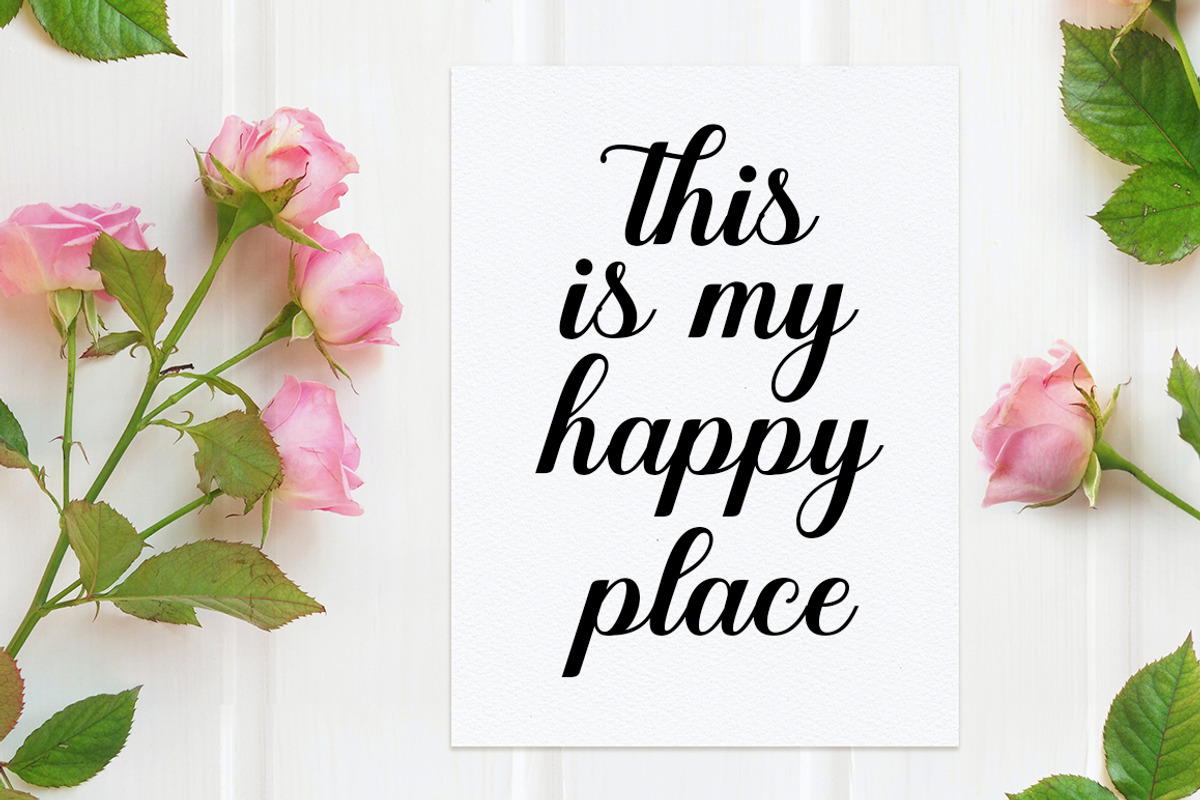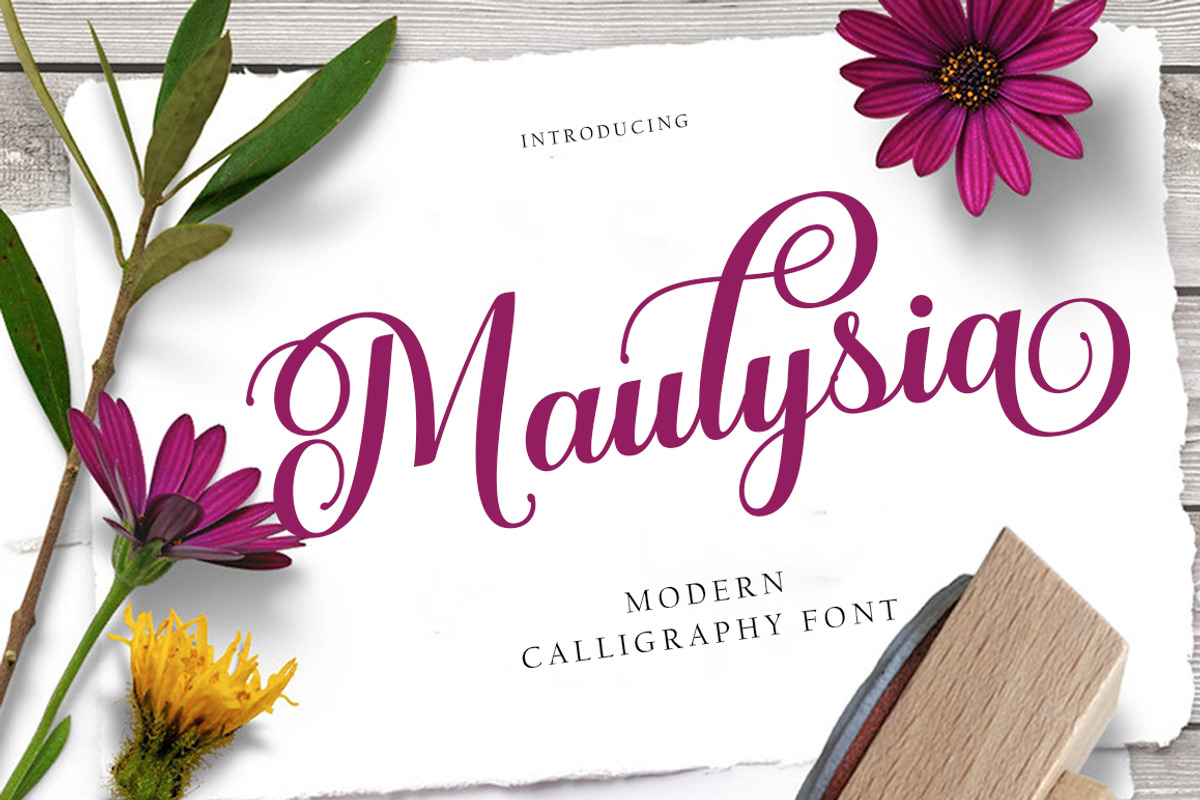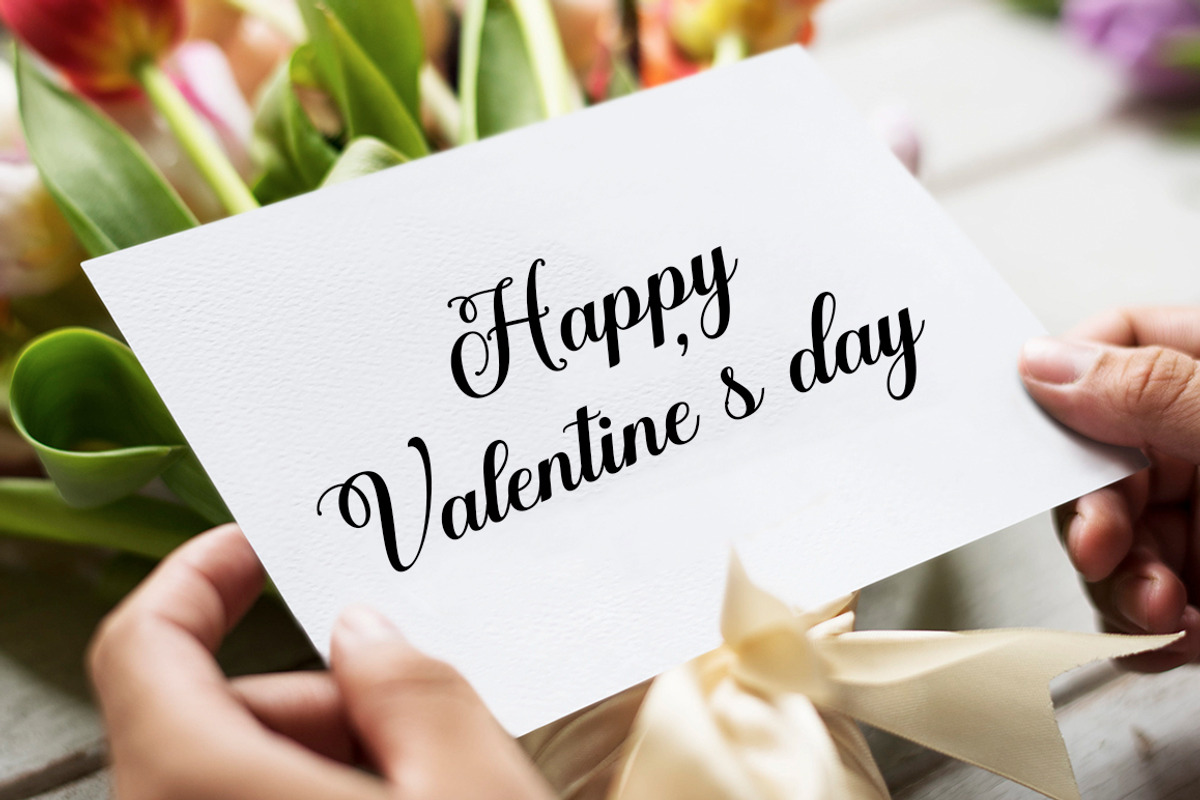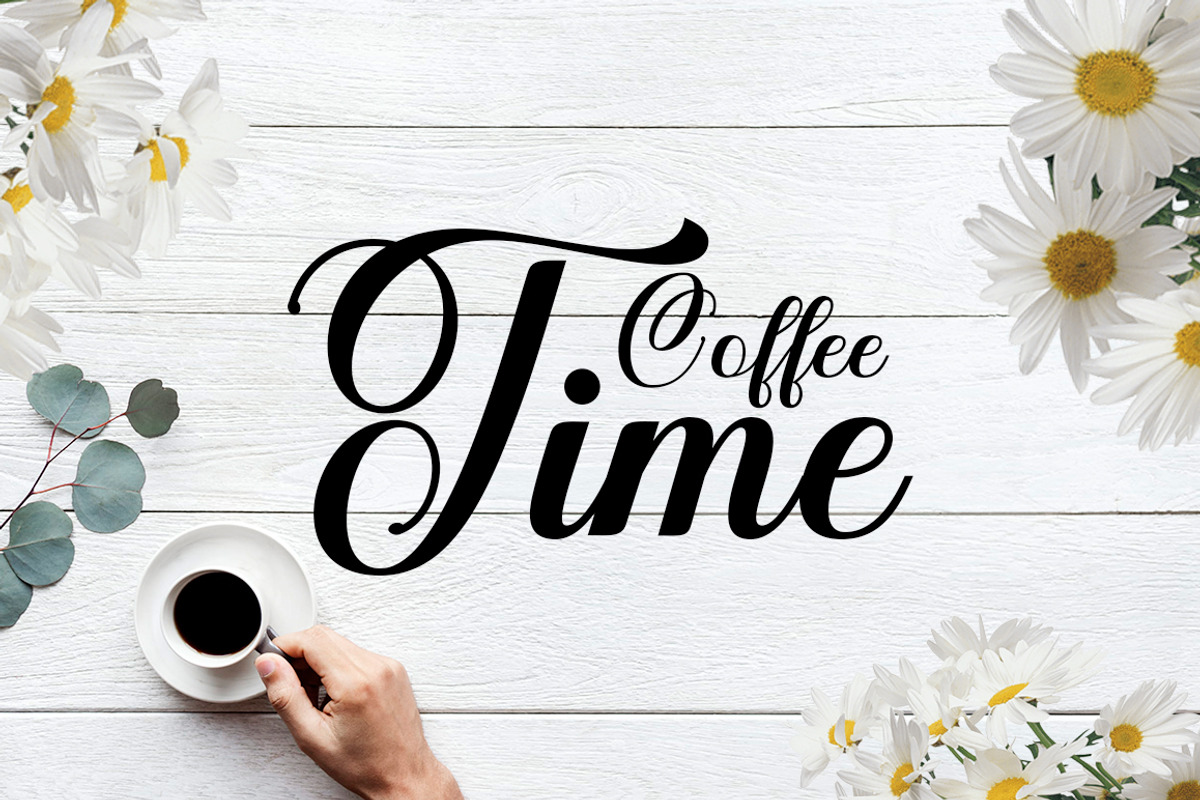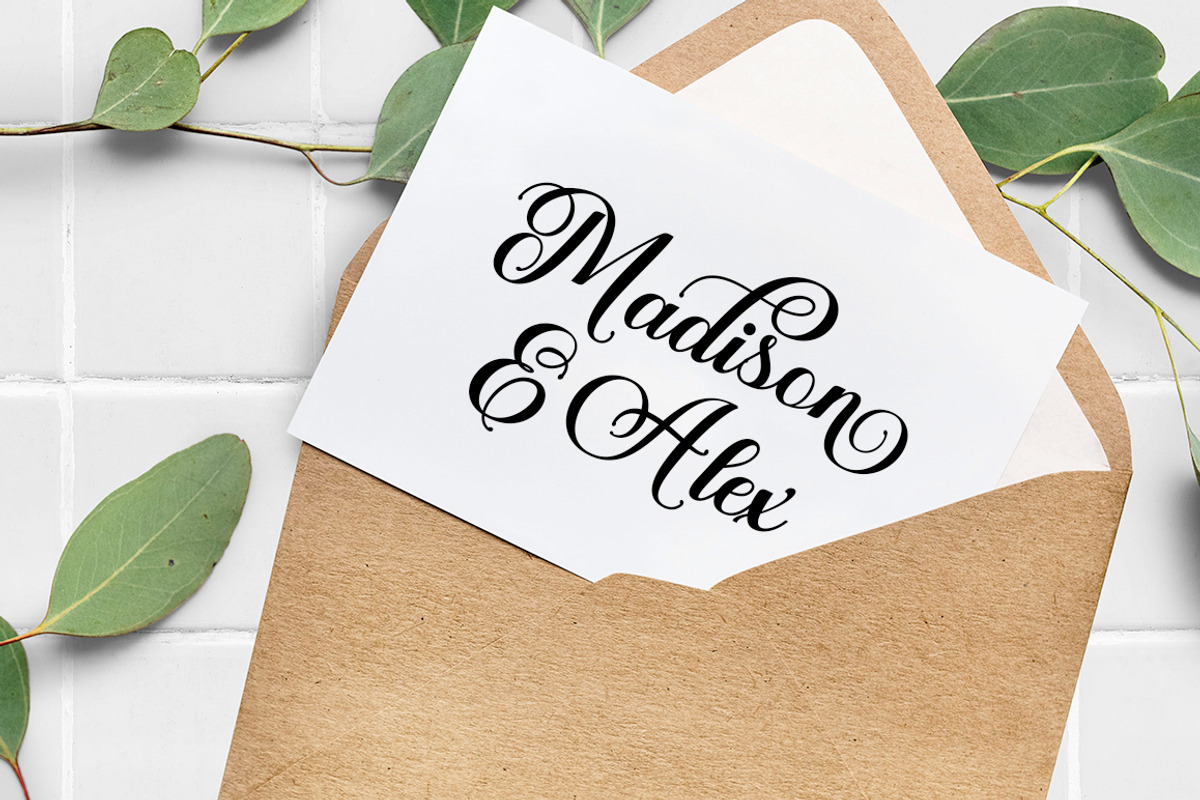
Maulysia
Maulysia is a modern Signature font created in an elegant and professional style with alternate characters. perfect font for creating signature logos and watermarks for photography studios or personal photography logos, best for initial logos or brand signatures.
Maulysia includes a full set of beautiful handwritten upper and lower case letters, numbers, assorted punctuation marks. All lowercase letters include starting and ending strokes, providing a realistic handwriting style.